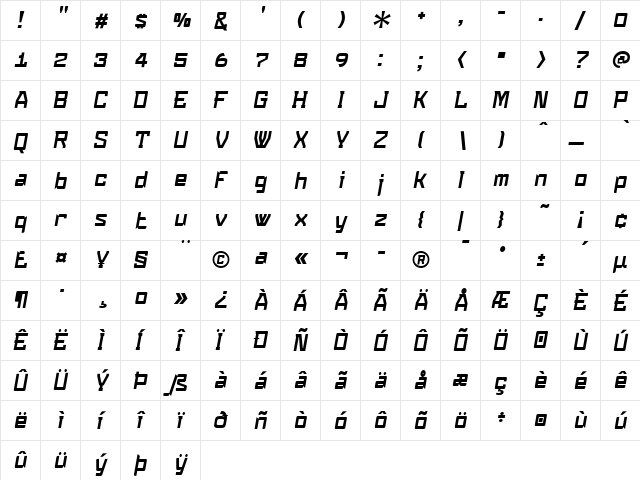
Konvexist Oblique
Design Context for Konvexist Typeface
Konvexist offers clean, dependable letterforms without strong stylistic allegiance, making it a practical choice for designers who need flexibility. Its italic angle brings a sense of urgency and motion to the letterforms.
Pro Tip: Use Konvexist for emphasis, pull quotes, and subheadings where its slanted energy can add rhythm to the layout.